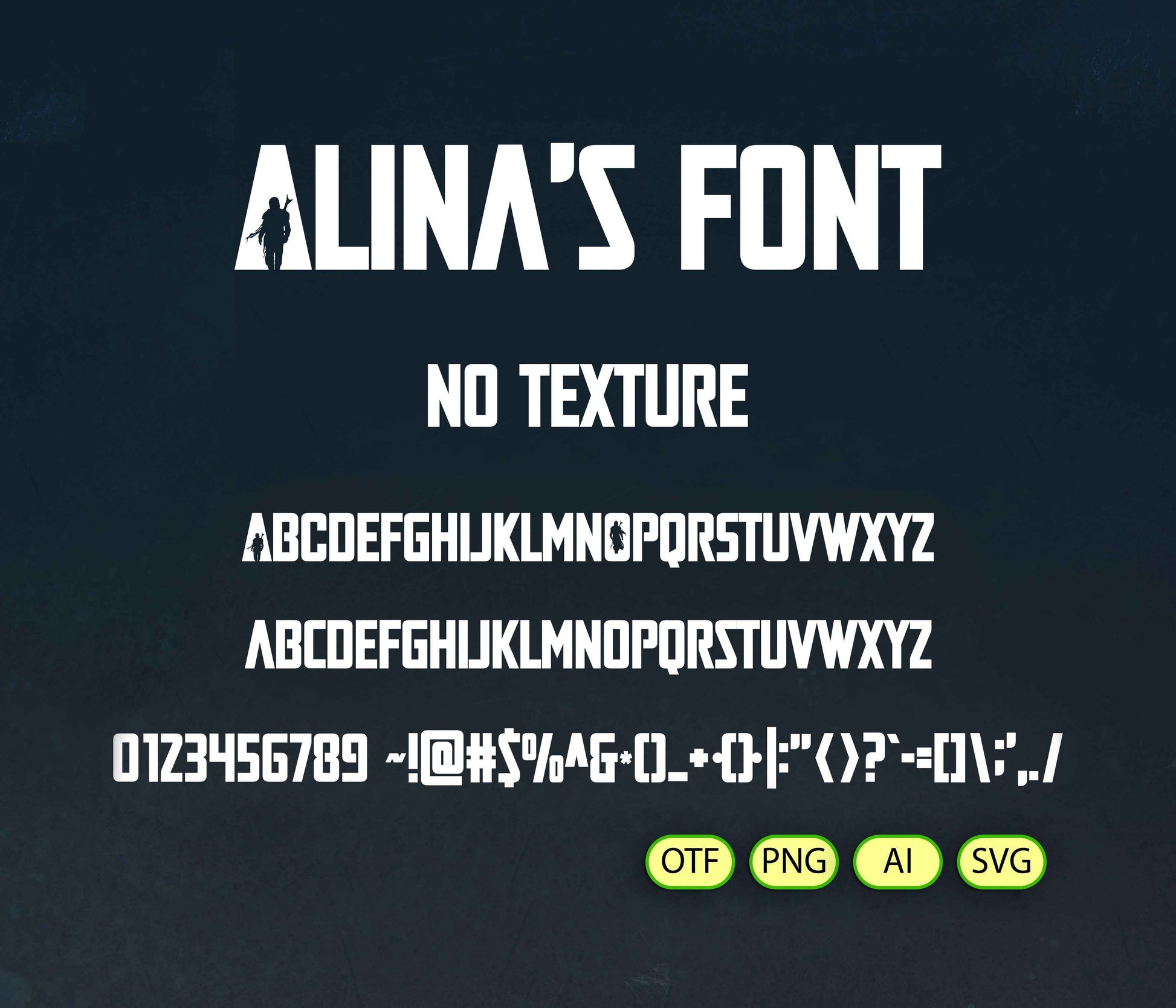
Galactic Bounty Hunter Font
Step into the Iconic Galaxy with the Galactic Bounty Hunter Font
Inspired by the legendary tales of intergalactic adventures, this font brings the spirit of heroism, and cosmic battles to your creative projects. Immerse yourself in a captivating world that has enthralled fans across galaxies, as you harness the power of this typographic treasure.
Let each letter embody the magic, heroism, and timeless battles of the galaxy, as you pay tribute to the beloved adventures that have captivated fans for generations.